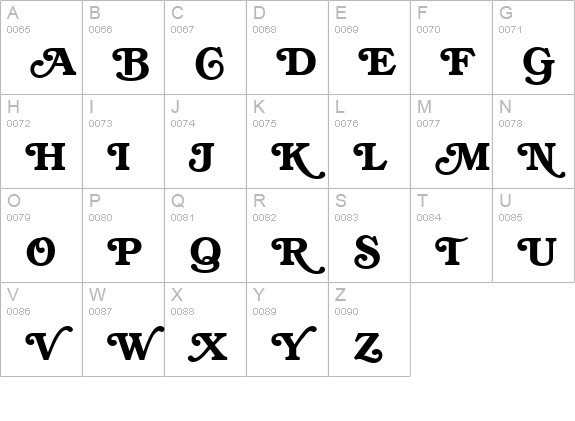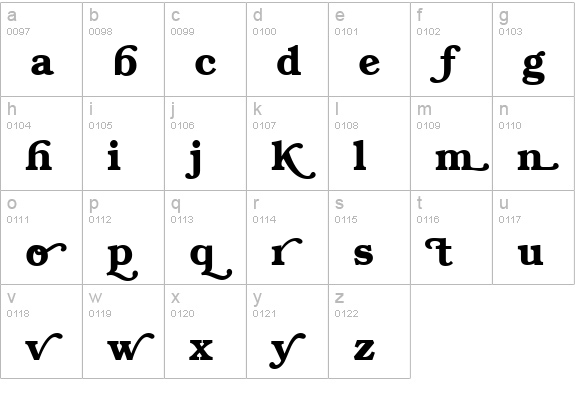
BookwomanSwash DemiSH Font Details
BookwomanSwash DemiSH font is a beautifully elegant and sophisticated typeface that exudes charm and grace. With its delicate swashes and stylish curves, this font is perfect for adding a touch of class to any design project. Whether you're working on invitations, branding, or social media graphics, BookwomanSwash DemiSH will elevate your work to the next level. And the best part is, this stunning font is available for free download at FontsMarket.com. So go ahead and add a touch of elegance to your projects with BookwomanSwash DemiSH font today!